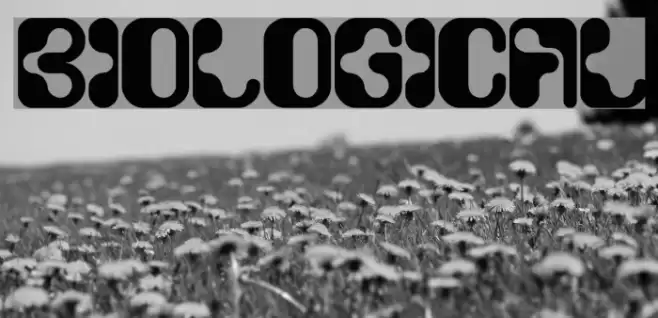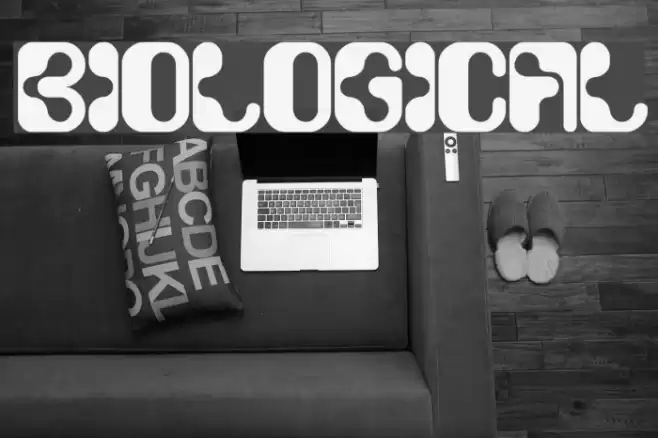
biological Font
biological Description
This font features a bold, futuristic design with rounded edges and a unique, organic flow. The characters are constructed with thick strokes and have a playful, almost bubbly appearance. The design incorporates negative space creatively, giving it a dynamic and eye-catching look. It is highly stylized, making it suitable for modern and creative projects. The uppercase letters are consistent in height, while the lowercase letters maintain a similar style, enhancing the font's cohesive appearance. The numbers and special characters follow the same design principles, ensuring uniformity across all glyphs.
A bold, futuristic font with rounded edges and a playful, organic design from Uncategorized fonts.
- Proposed Projects: Ideal for branding, posters, album covers, and any project requiring a modern, eye-catching typeface.